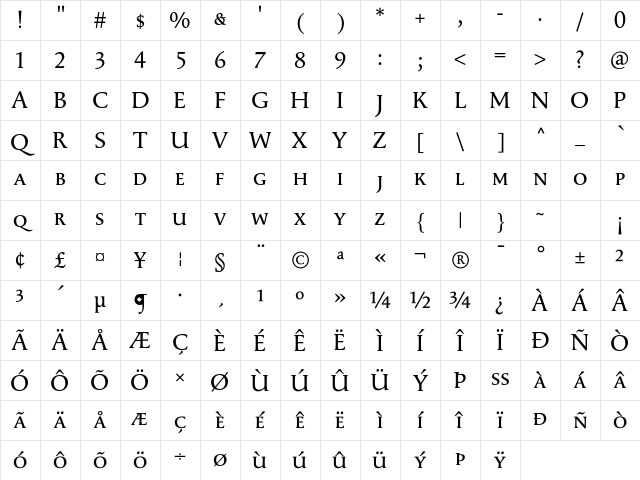
Apolline RegularSC
Style: RegularSC
Complete Apolline RegularSC glyph index. Displaying only characters natively supported by Apolline RegularSC font.
Design Context for Apolline
Apolline is a composed and adaptable typeface that performs quietly and consistently across a wide range of design contexts.